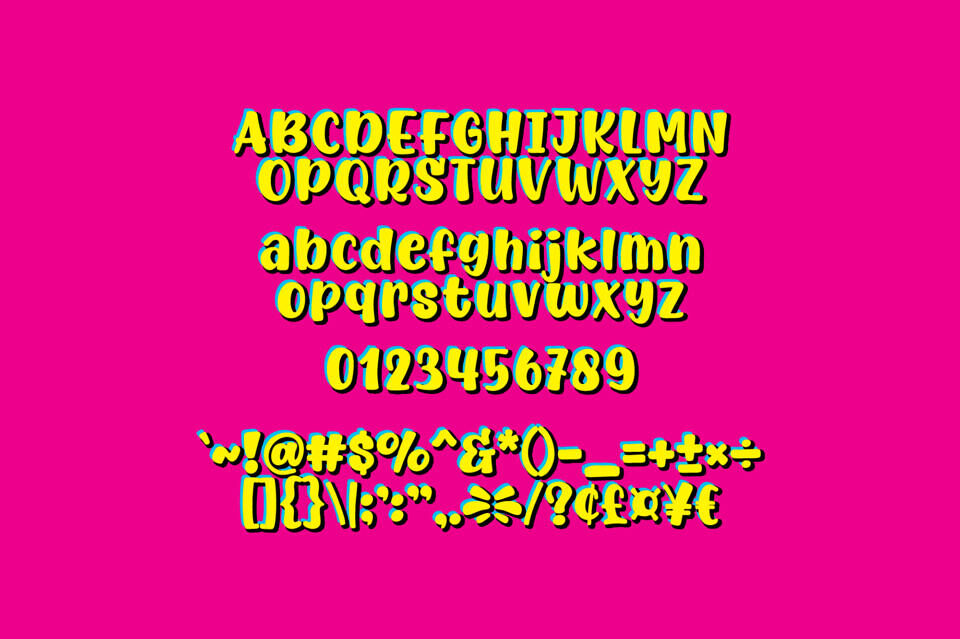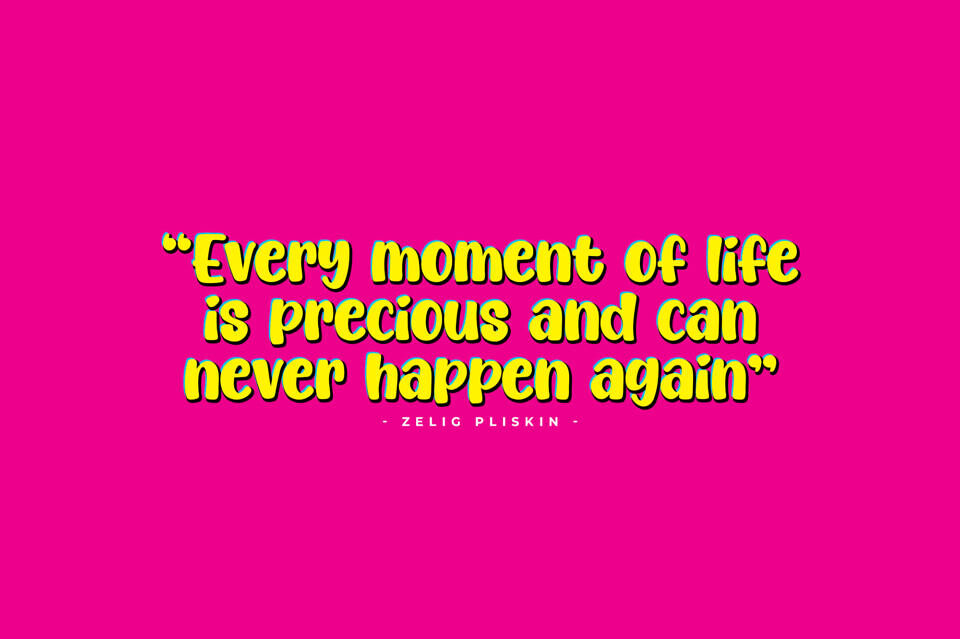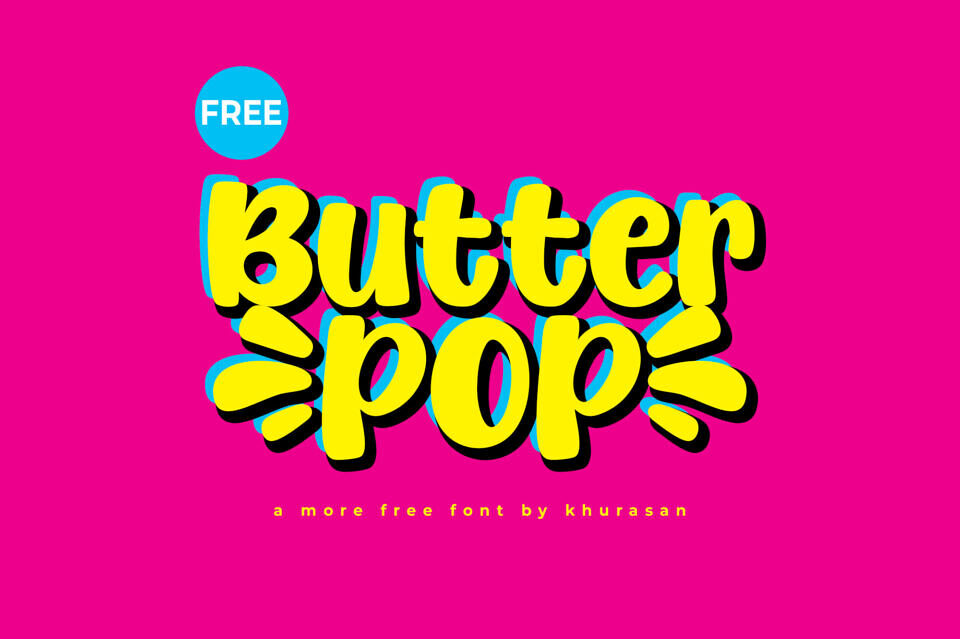
Butterpop Font
Pop into your next project with the Butterpop font, a high-energy display typeface that radiates joy and movement. The Butterpop typeface features thick, bouncy letterforms accented with playful “motion sparks,” making it a perfect match for snack packaging, toy branding, and vibrant social media graphics.
Whether you are designing a catchy logo for a new candy brand or a fun YouTube banner, the Butterpop typeface provides the “butter-smooth” flow and “pop” of personality needed to capture any audience’s attention instantly